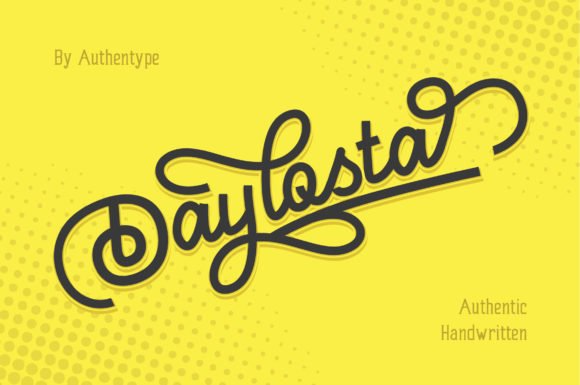
Unleash Your Creativity with the Daylosta Font
There’s something magical about sitting down with a blank canvas, a cup of coffee, and a font that speaks to you. For many designers, it’s that moment when the perfect font comes along and sparks an idea. The Daylosta Font is one such font that can transport you to a world of creativity and endless possibilities. This beautiful handwritten font is designed to be used in a variety of projects, from invitations and greeting cards to logos and branding materials.
The Daylosta Font is a must-have for designers who want to add a touch of elegance and sophistication to their designs. Its flowing and delicate style makes it incredibly versatile, allowing you to experiment with different combinations of letters and swashes to create truly unique designs. With its PUA encoding, you can easily access all the glyphs and swashes, making it a valuable tool for any designer looking to take their designs to the next level.
Key Features of Daylosta Font
- Font Family: Daylosta Font comes in a single font family with multiple weights and styles, offering a total of 12 font styles.
- Unique Characteristics: The font features a unique, hand-drawn design with a mix of modern and vintage elements, making it ideal for creating eye-catching and creative designs.
- Language Support: Supports a wide range of languages, including Latin, Cyrillic, Greek, and many more, making it a versatile font for international designs.
Daylosta Font Review
As a designer, I was excited to try out the Daylosta font, but I have to say that my experience was a mixed bag. Here are my thoughts.
- The unique design of the font is a standout feature. It’s a great choice for anyone looking to add a touch of sophistication to their branding or design project.
- The font is highly customizable, allowing users to adjust the weight, style, and size to suit their needs.
- Daylosta is also available in a range of languages, making it a great option for international projects.
- The font may not be the best choice for body text, as it can be quite difficult to read at smaller font sizes.
- Some users may find the font’s design to be too ornate or over-the-top, which could detract from the overall aesthetic of a design project.
Overall, I would say that the Daylosta font is a great choice for designers looking to add a touch of elegance to their projects. While it may have some limitations, its unique design and customization options make it a valuable addition to any design toolkit.
Practical Application Guide for Daylosta Font
Tips for Getting the Most Out of Daylosta Font
Use Daylosta Font for bold, eye-catching headings and titles.
Pair it with a clean, modern sans-serif font for body text.
Daylosta Font is ideal for:
– Creative agency websites and branding
– Fashion and lifestyle blog designs
– Social media graphics and advertisements
– Any project that requires a unique, stylish font
Alternatives to Daylosta Font
Fontin is a sans-serif font known for its geometric shapes and clean lines. It’s suitable for use in modern and minimalist designs, particularly for titles and headings. Fontin is more versatile than Daylosta Font as it has a larger character set and is more suitable for body text.
Comparison: Fontin is more geometric and clean, whereas Daylosta Font has a more handwritten feel. Fontin is also more suitable for digital use due to its wider character set.
Great Vibes is a script font with a relaxed, handwritten feel. It’s ideal for use in creative and artistic designs, particularly for titles and quotes. Great Vibes is more expressive than Daylosta Font, but may be less suitable for body text due to its complex letterforms.
What is the recommended font size for optimal readability with the Daylosta Font?
The recommended font size for optimal readability with the Daylosta Font is between 10pt and 24pt. However, this may vary depending on the specific application, screen resolution, and viewing distance. It’s always a good idea to test the font at different sizes to ensure optimal readability for your specific use case.